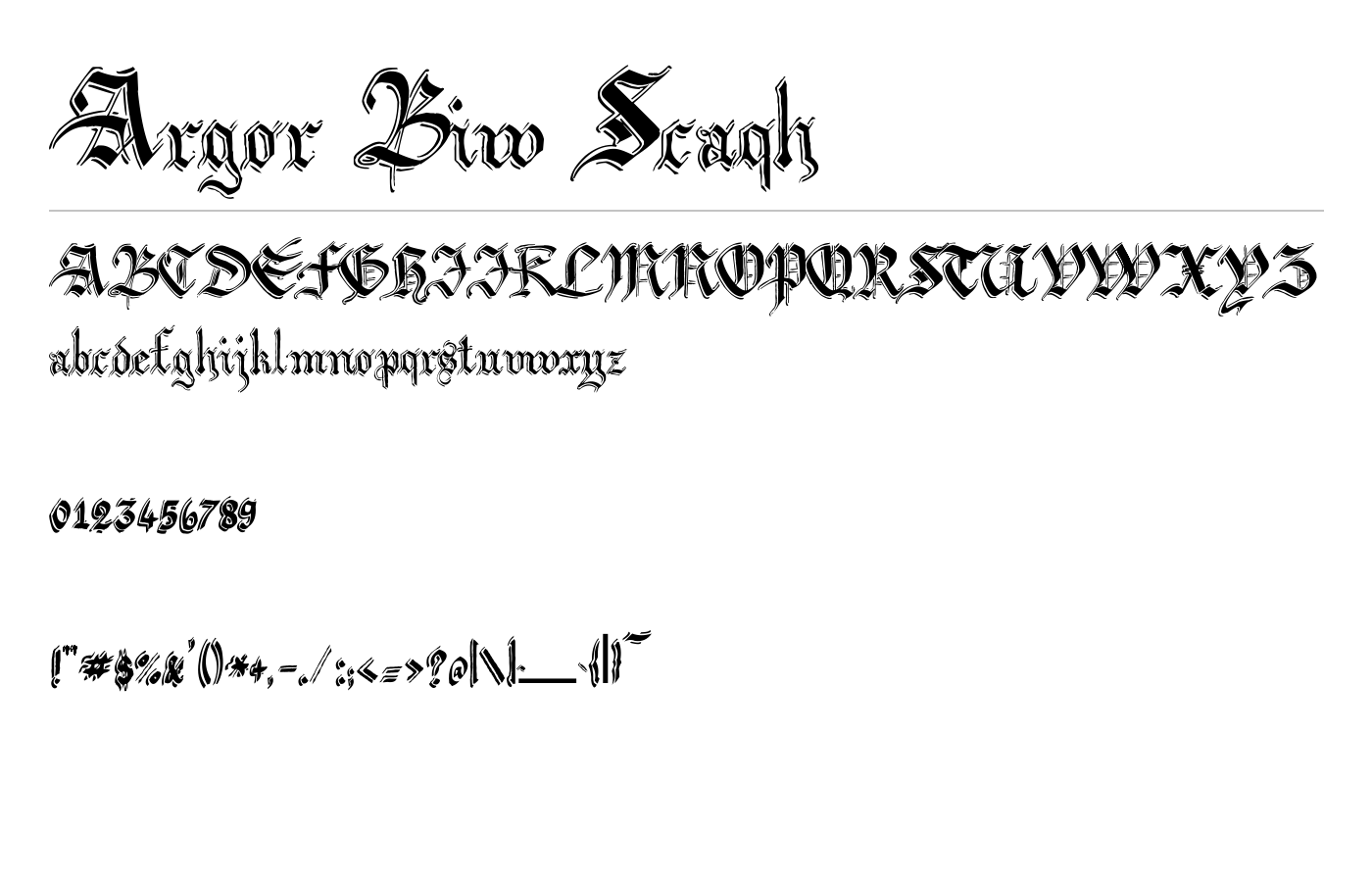
Argor Biw Scaqh is a decorative blackletter font with intricate, sharp strokes and high contrast between thick and thin lines, reminiscent of traditional Gothic calligraphy. Its ornate letterforms evoke a historic, medieval feel, making it ideal for projects that seek a dramatic, vintage, or classic aesthetic such as logos, posters, and themed editorial designs. This font works best in large display settings where its detailed style can be appreciated without sacrificing readability.
Argor Biw Scaqh Font
About Argor Biw Scaqh Font